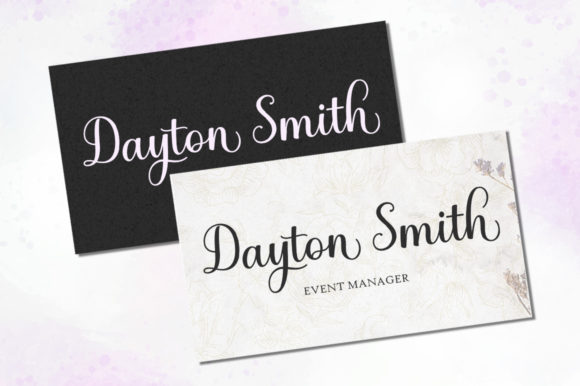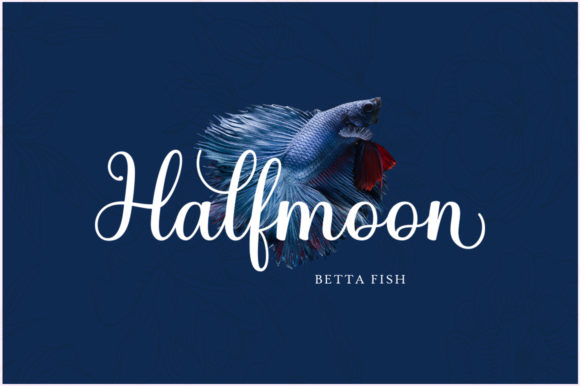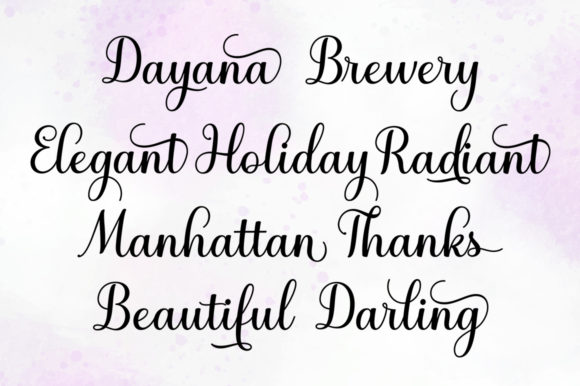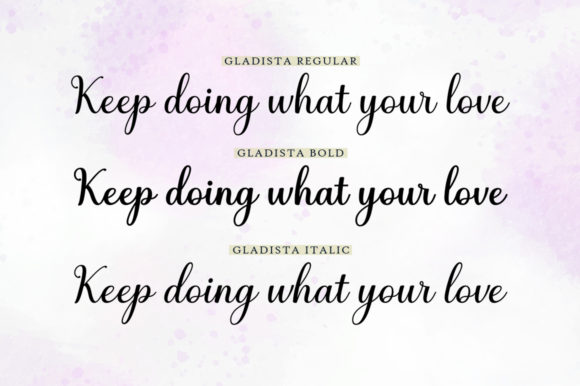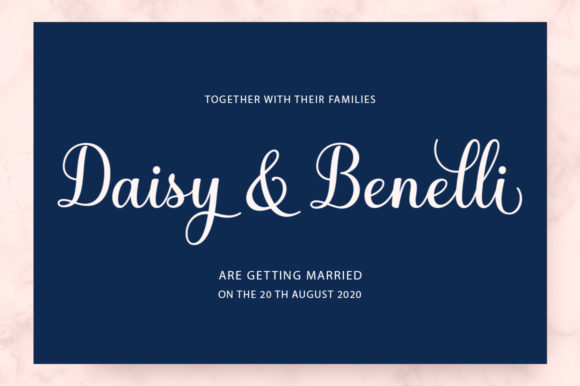
Introducing Gladista Font: Elevate Your Designs with Elegance
Are you on the hunt for a font that exudes elegance and sophistication? Look no further than Gladista Font, a stunning handwritten font that is sure to capture your heart. With its flowing lines and timeless style, Gladista is the perfect addition to your design arsenal.
The Characteristics of Gladista Font
Gladista Font is a beautifully crafted handwritten font that boasts an elegant touch. Its distinct and classic style makes it an excellent choice for a wide range of design projects, from branding and advertising to packaging and digital media. The font’s unique charm lies in its ability to convey a sense of refinement and luxury, making it perfect for designers who want to create high-end designs.
What Sets Gladista Apart
So, what makes Gladista Font stand out from the rest? For starters, its PUA (Private Use Area) encoding allows for easy access to all glyphs and swashes, giving you the creative freedom to experiment with different design elements. This feature makes it easy to customize your designs and add a personal touch. Additionally, Gladista’s incredibly distinct and timeless style ensures that your designs will remain relevant for years to come.
Gladista Font is versatile and can be used for a wide range of projects, including:
- Branding and Logo Design: Create a lasting impression with a custom logo that showcases your brand’s personality and style.
- Advertising and Marketing: Use Gladista to create eye-catching ads and promotional materials that grab attention and leave a lasting impact.
- Packaging Design: Add a touch of elegance to your product packaging and make it stand out on store shelves.
- Digital Media: Use Gladista to create stunning social media graphics, blog posts, and website headers that showcase your brand’s style.
Why Designers and Crafters Love Gladista Font
Gladista Font has quickly become a favorite among designers and crafters, and for good reason. Here are just a few reasons why:
- Ease of Use: Gladista is incredibly easy to use, even for those who are new to design. Its PUA encoding makes it simple to access all glyphs and swashes.
- Customization: With Gladista, you have the freedom to experiment with different design elements and create unique designs that reflect your style.
- Timeless Style: Gladista’s classic style ensures that your designs will remain relevant for years to come, making it a great investment for any designer or crafter.
Tips for Getting the Most Out of Gladista Font
To get the most out of Gladista Font, here are a few tips to keep in mind:
- Experiment with Different Sizes: Gladista looks great in a variety of sizes, so don’t be afraid to experiment and find the perfect size for your design.
- Play with Swashes: Gladista’s swashes add an extra touch of elegance to your designs. Experiment with different swashes to find the perfect combination.
- Pair it with Other Fonts: Gladista pairs well with a variety of fonts. Experiment with different pairings to find the perfect combination for your design.
In conclusion, Gladista Font is a stunning handwritten font that is sure to elevate your designs to the next level. With its elegant touch, timeless style, and ease of use, it’s the perfect addition to any design arsenal. Whether you’re a seasoned designer or just starting out, Gladista is a great choice for anyone looking to create high-end designs that leave a lasting impression.